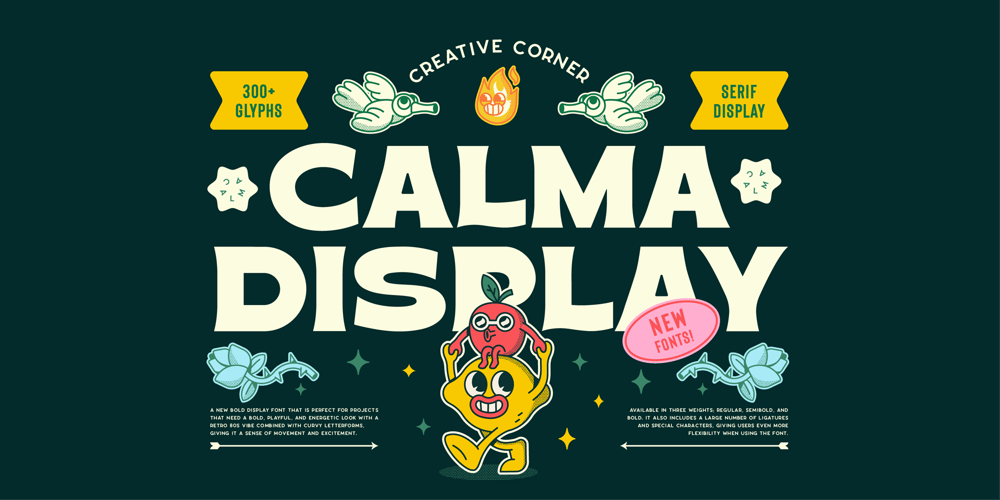
CCS Calma Font Family was designed by Kurt Harahap and published by Creative Corner Studio. CCS Calma contains 3 styles and family package options. Calma is a new bold display font that is perfect for projects that need a bold, playful, and energetic look with a retro 80s vibe. It features slightly expanded stroke endings combined with curvy letterforms, giving it a sense of movement and excitement. It also includes a large number of ligatures and special characters, giving users even more flexibility and creativity when using the font. Calma can be used for a variety of purposes, including headlines, titles, posters, packaging, and branding. It is also well-suited for use in digital applications, such as websites and social media. Calma is the font that will make your next project pop!